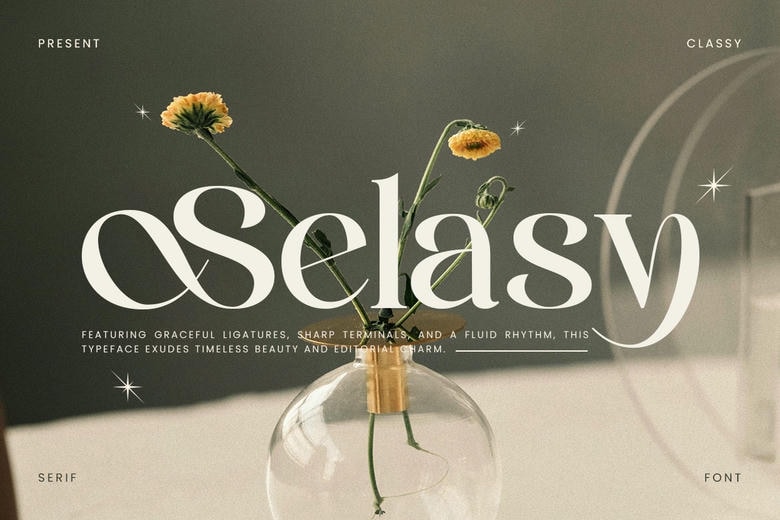
Selasy Font
Selasy is a sophisticated serif font which combines classic beauty with the elegant contemporary. Made to take your design to the next level without trying hard, the Selasy font has elegant ligature, crisp ends and a flowing rhythm that will capture your eye and hold your attention. Regardless of the editorial layouts, branding presentations, packaging, logo or wedding stationery, Selasy contributes a touch of refined sophistication to each.
The strokes of the text as well as the elegantly-shaped letterforms are of high contrast, which is why it is an ideal solution to high-quality visual narration. In fashion lookbooks, or high-end cosmetics, the Selasy typeface is clear and charismatic without making much effort.
Selasy Serif Font